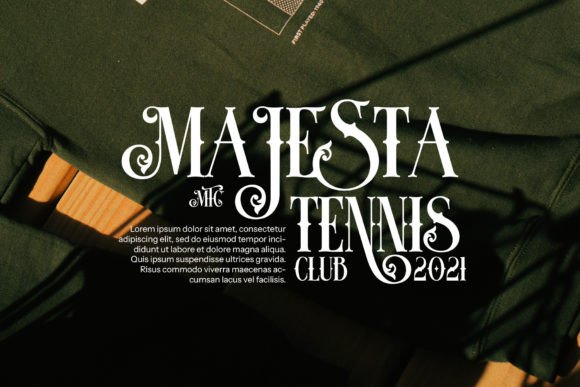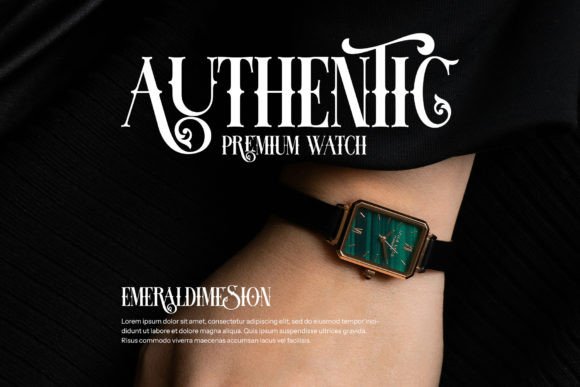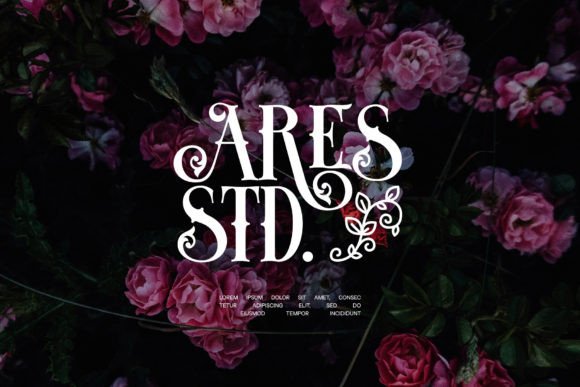
Blistao Font
Blistao Tattoo Vintage Retro Serif is a stylish font inspired by classic tattoo designs and old-school lettering. It has bold, decorative letters that give off a vintage and retro vibe, perfect for logos, posters, and creative projects that want a timeless, artistic look.